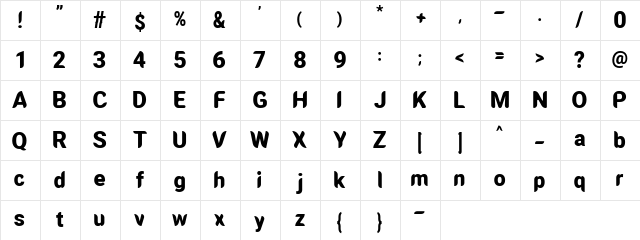
Gitaluevo Regular
| Designer | Yulia Risma |
Design Context for Gitaluevo Typeface
Gitaluevo takes a measured approach to typography — its balanced proportions and neutral character make it a reliable workhorse for both digital and print work.